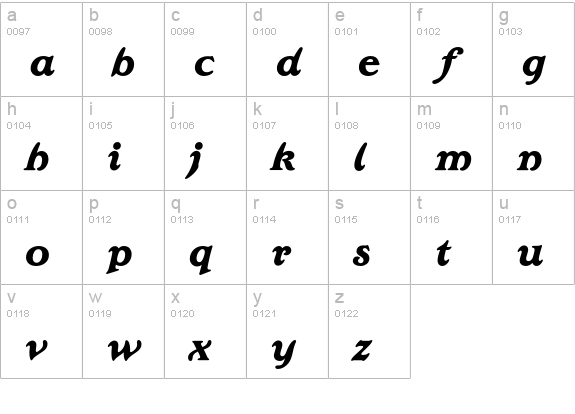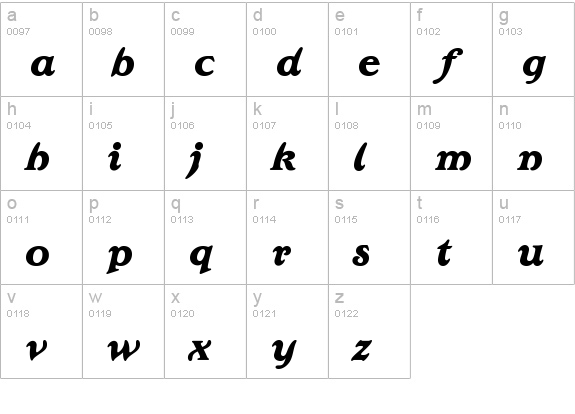
EdwardianEF-ExtraBoldIta Font Details
Introducing EdwardianEF-ExtraBoldIta, a font that exudes elegance, sophistication, and a touch of timeless charm. This font is the perfect embodiment of the Edwardian era's grandeur and opulence, capturing the essence of an era that celebrated refinement and grace. With its bold and italicized design, EdwardianEF-ExtraBoldIta commands attention and makes a powerful statement. Its strong, confident strokes convey a sense of authority and distinction, making it ideal for headlines, titles, and any design project that requires a touch of extravagance. The EdwardianEF-ExtraBoldIta font strikes a beautiful balance between classic and modern, seamlessly blending the intricate details of traditional calligraphy with a contemporary twist. Its meticulously crafted letterforms, with their ornate flourishes and delicate curves, are a testament to the artistry and craftsmanship that went into its creation. One of the most remarkable aspects of EdwardianEF-ExtraBoldIta is that it is freely available to download at FontsMarket.com. This means that designers, creatives, and enthusiasts alike can have access to this stunning font without any cost. It is a gift to the design community, offering endless possibilities for creating captivating visuals and captivating the audience. Whether you're working on a branding project, wedding invitations, or any design endeavor that requires a touch of sophistication, EdwardianEF-ExtraBoldIta is the font that will elevate your work to new heights. Its bold, italicized presence will captivate viewers and leave a lasting impression, making it a must-have addition to any designer's toolkit. Download EdwardianEF-ExtraBoldIta today at FontsMarket.com and experience the allure and elegance of this remarkable font. Let it inspire your creativity and unlock a world of design possibilities that will leave a lasting impact.